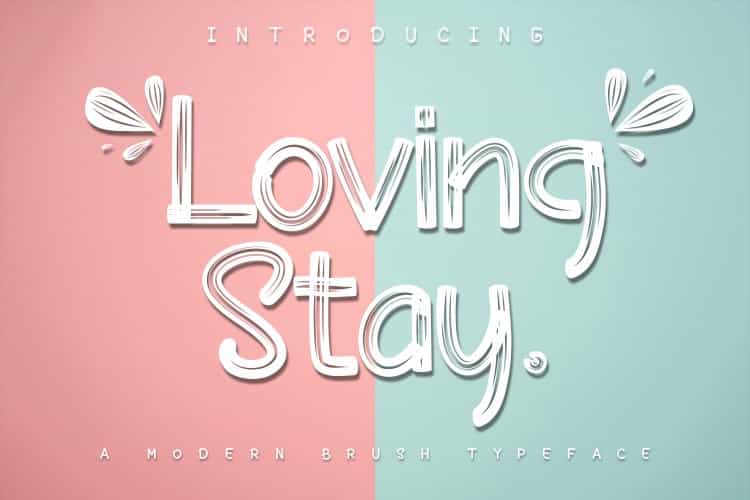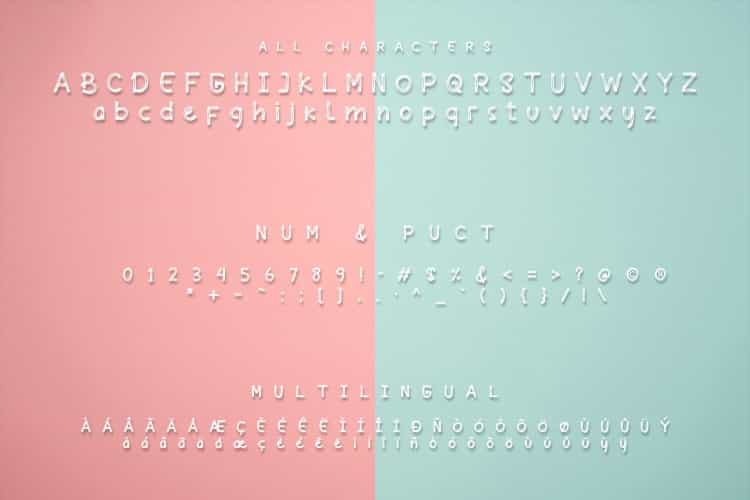
Loving Stay is a nice cutout font, which was made by using a brush pen. Clean and a bit funny, this font is the right choice for all of your logos, branding, social media and crafty DIY projects.